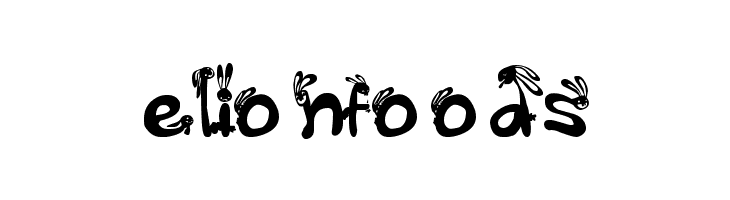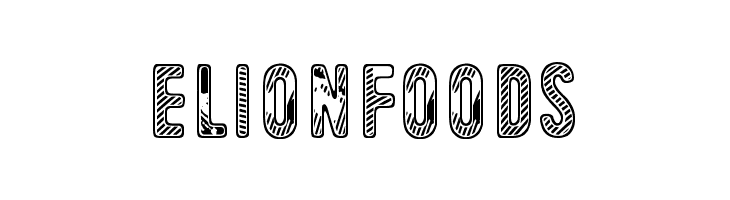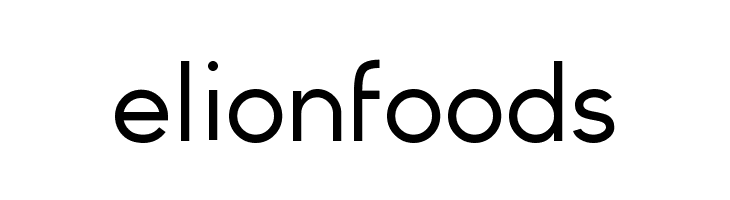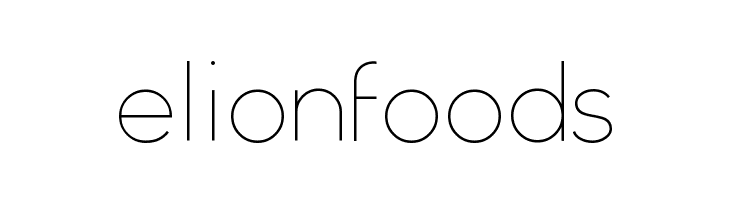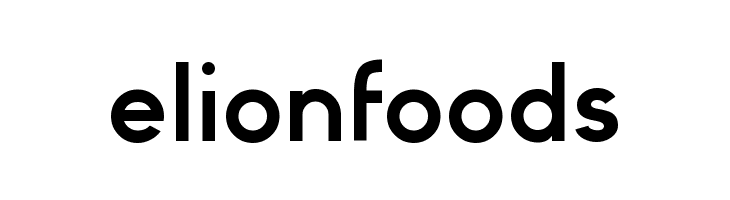
( Fonts by Mohammed Rahman )
Geometric sans-serif font optimized for clarity and legibility.
A bold, modern sans-serif font with clean lines and uniform strokes.
An ultra-thin, elegant font with a minimalist and modern aesthetic.
A modern sans-serif font with geometric structure and balanced appearance.
A sleek, minimalist font with thin, uniform strokes and a modern aesthetic.
A bold, playful font with a unique striped pattern, ideal for creative projects.
A bold, playful font with a unique striped pattern, ideal for eye-catching designs.
( Asia Culture - Sutrisno Budiharto - www.sutrisnobudiharto.net )
A decorative typeface featuring intricate patterns and cultural motifs within each character.
( Fonts by Quiccs )
A playful, rabbit-themed decorative font with bold, rounded characters.
( Fonts by Diego Gonzalez )
Pixelated, game-inspired decorative bitmap font with quirky icons.